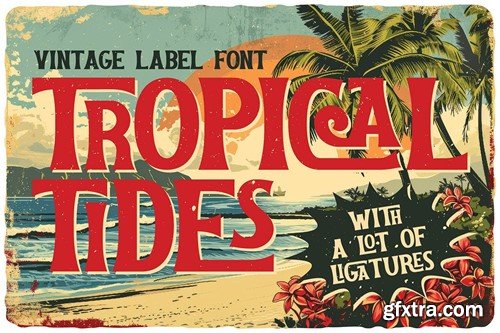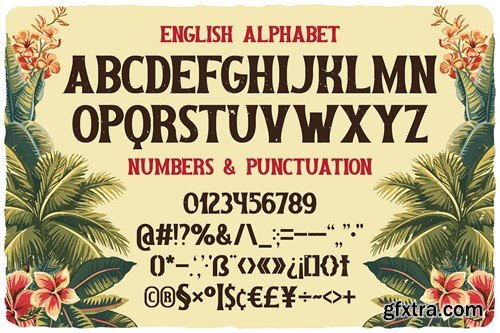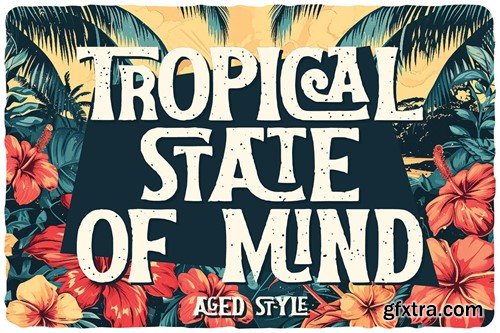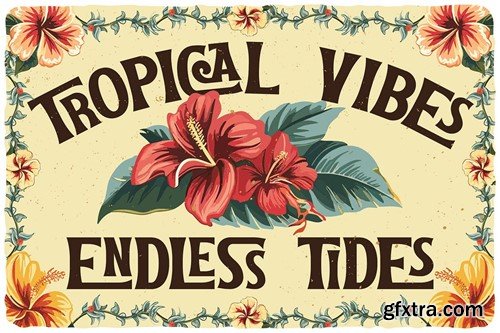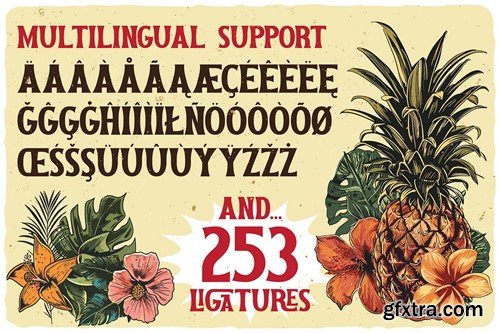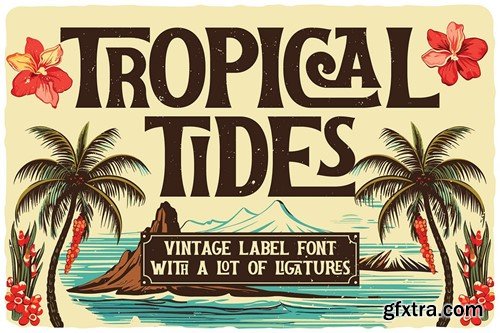
Tropical Tides Vintage Label Font NHXTHBJ
Tropical Tides Vintage Label Font
Unique, vintage, retro, rough & elegant serif font. Comes with multilingual support & ligatures - great for your new logo or branding project.
• 2 font styles - regular & rough
• Multilingual support & ligatures
• Great for retro or vintage style branding projects